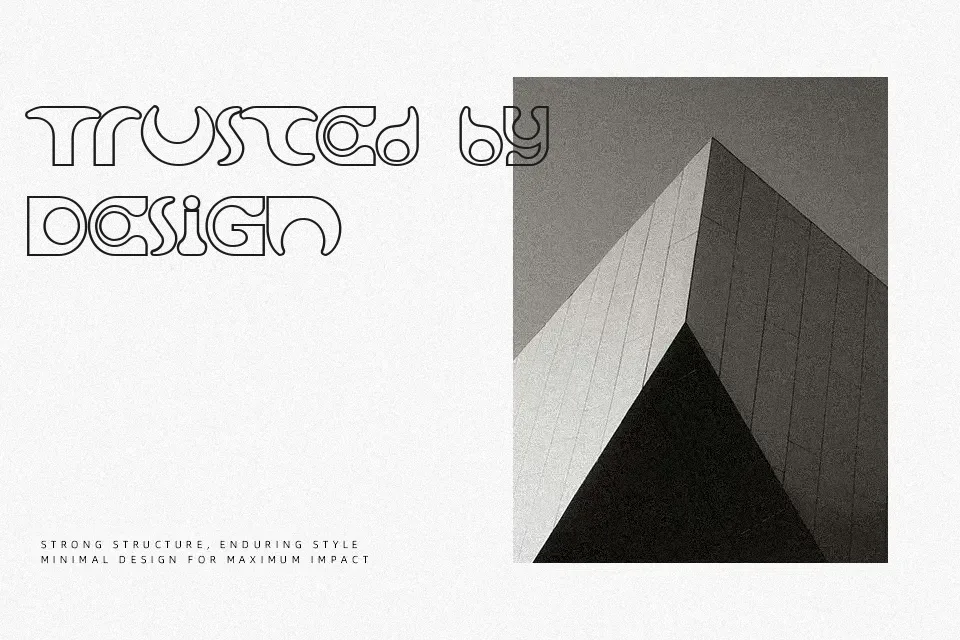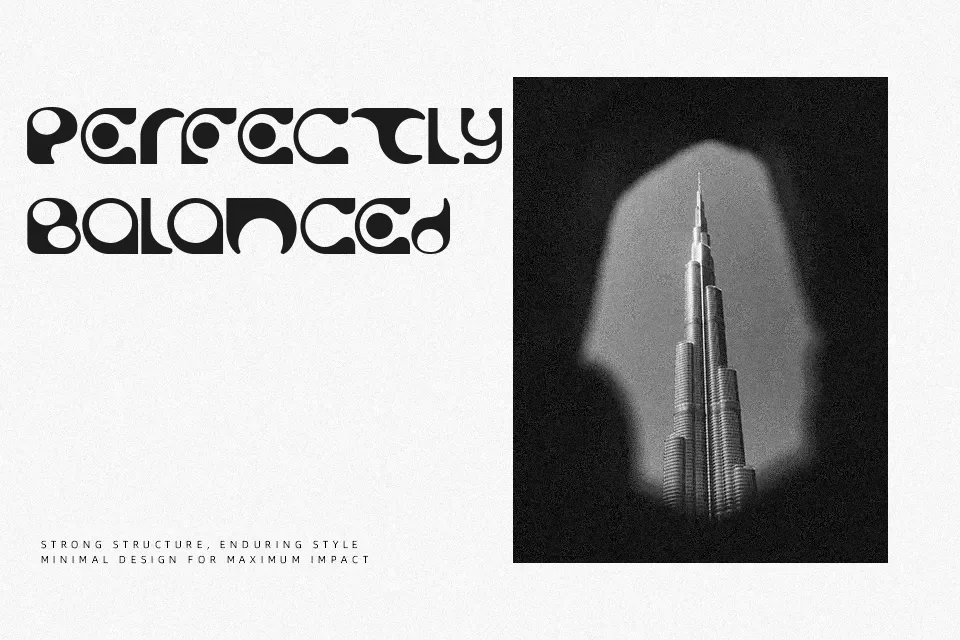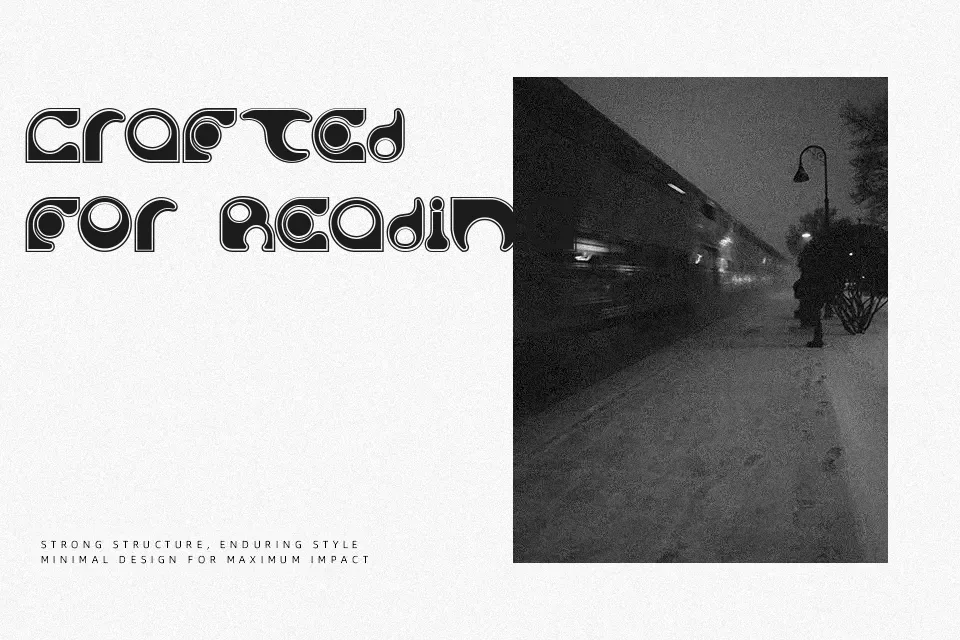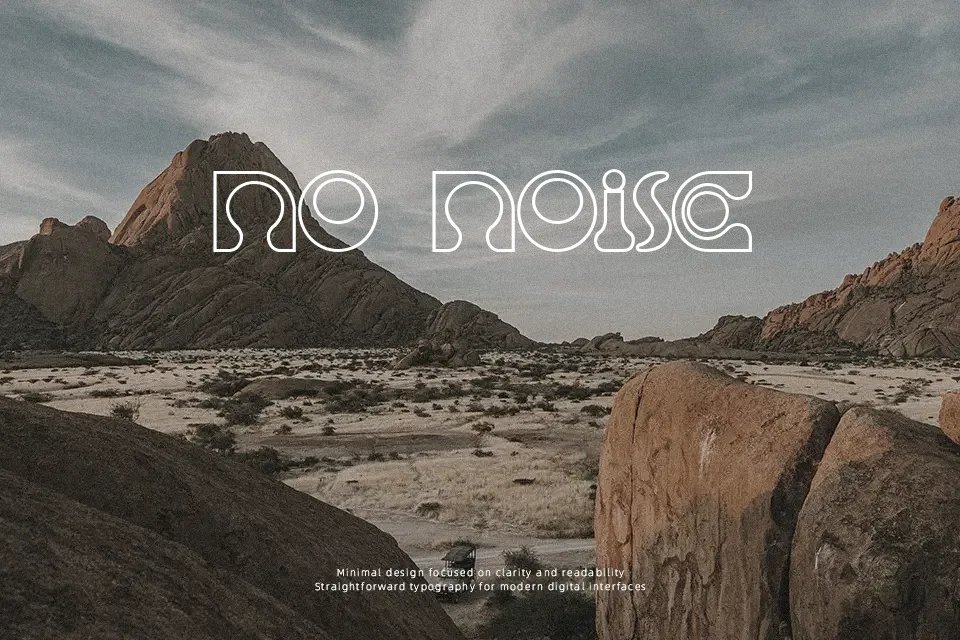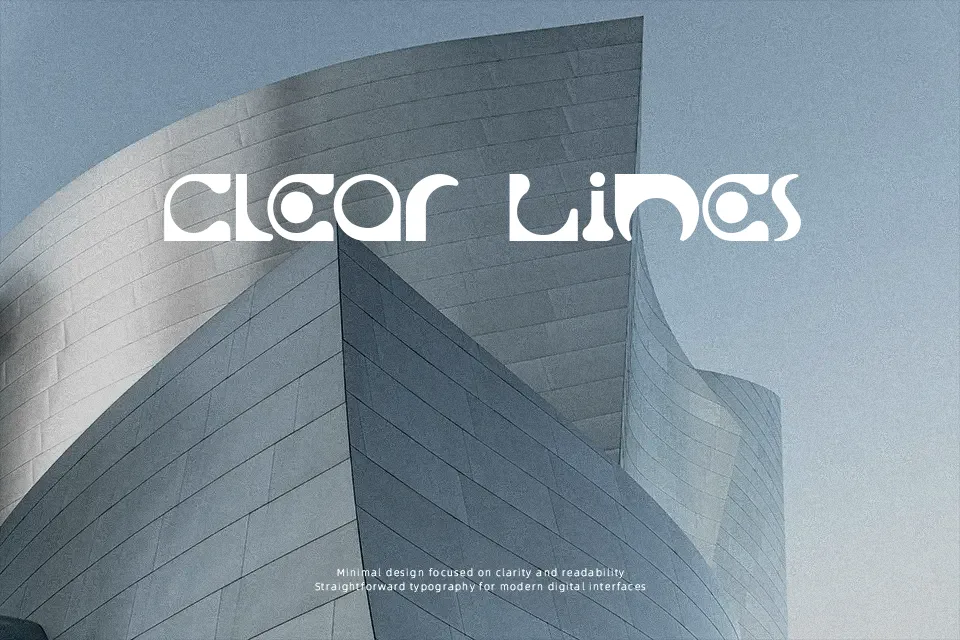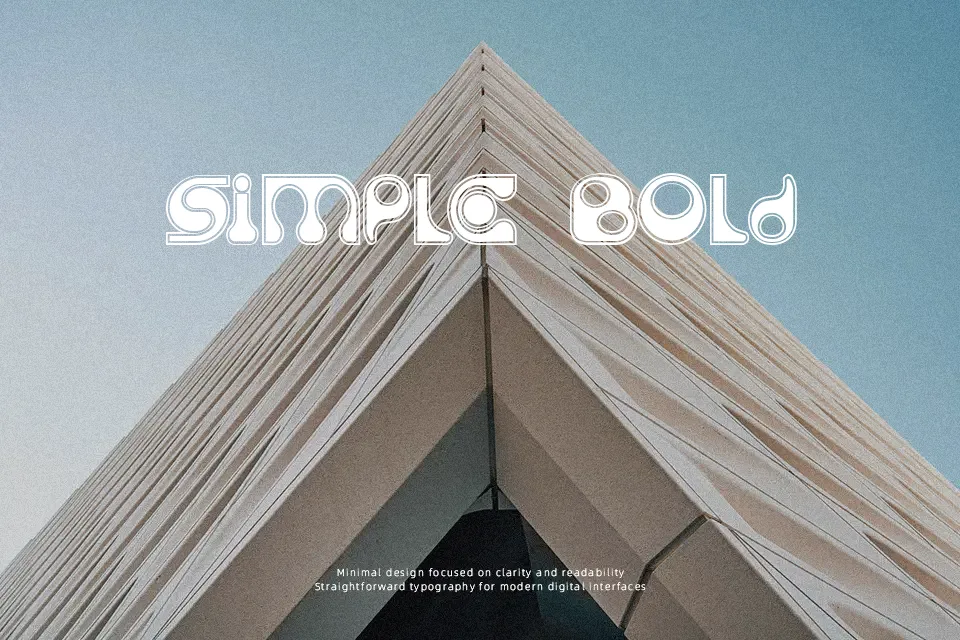
Solange Font
Designed by Owen Turley
Solange Font delivers maximum impact when deployed in large display settings where its heavy geometric architecture can command attention. Built with thick uniform strokes, rounded external corners, and compressed interior counters, the typeface exhibits an expressive aesthetic reminiscent of late twentieth-century space age graphics. Spacing remains tight to preserve visual density across uppercase and lowercase character sets. While the bold contours ensure high memorability in headline positions, the intricate modular details become difficult to parse at reduced point sizes. Consequently, the letterforms perform exceptionally well in punchy title treatments but remain unsuitable for continuous body copy or dense information layouts.
– music festival posters
– retro apparel graphics
– video game title screens
– sci-fi book covers
– long paragraph text
– mobile interface body copy
– formal business correspondence
Perfect for gaming, headline, and music, with a bold and decorative style.